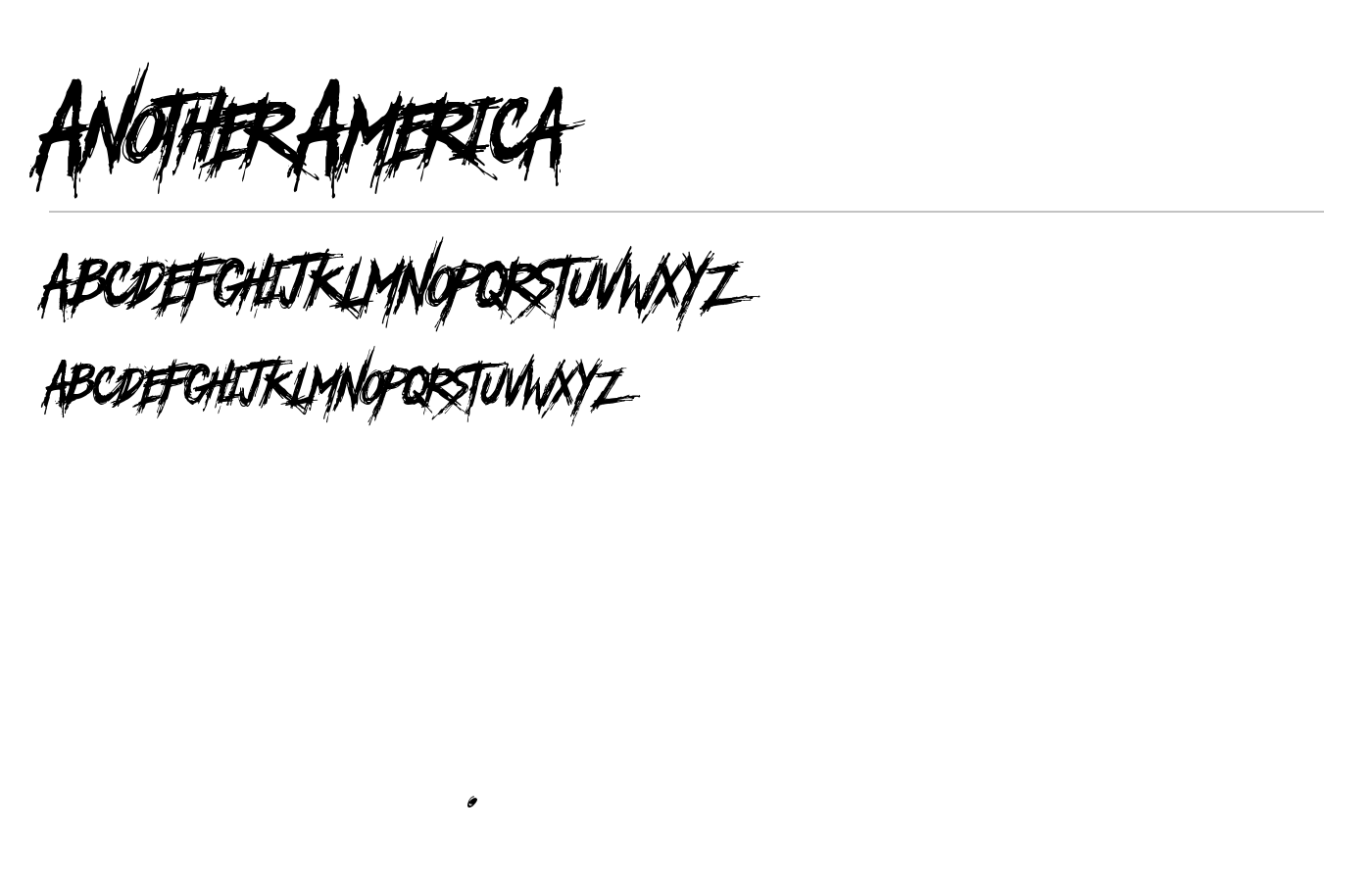
Another America is an edgy, distressed all-caps sans serif font with a rough, handmade brushstroke texture that gives it a raw, bold character. Its tall, narrow letterforms with sharp, irregular edges create a sense of urgency and rebellion, making it perfect for designs that want to evoke energy, intensity, and an urban or grunge vibe. This font works best for eye-catching headlines, posters, and creative branding where a dynamic, unconventional look is desired.
Another America Font